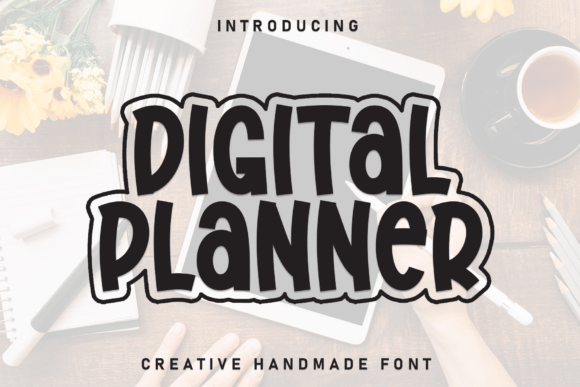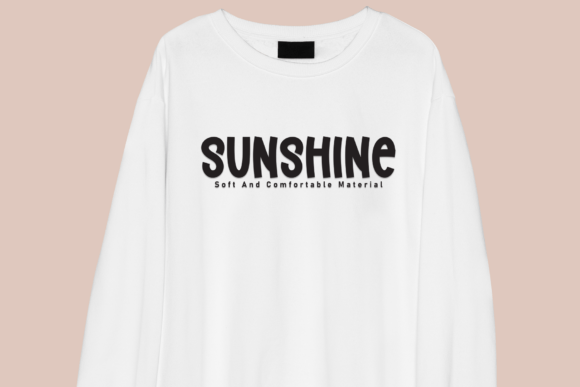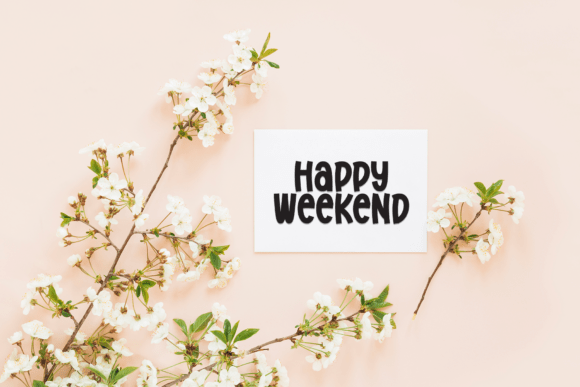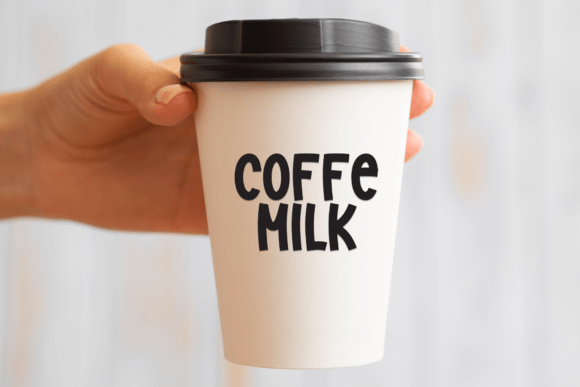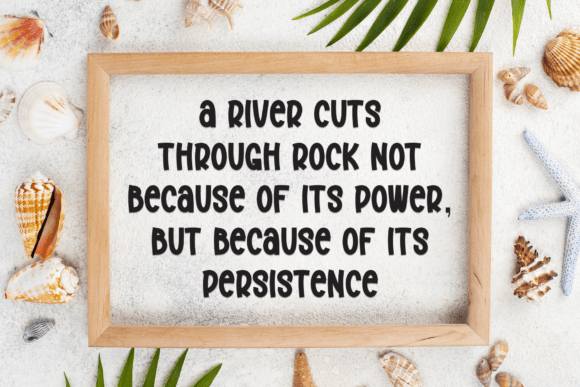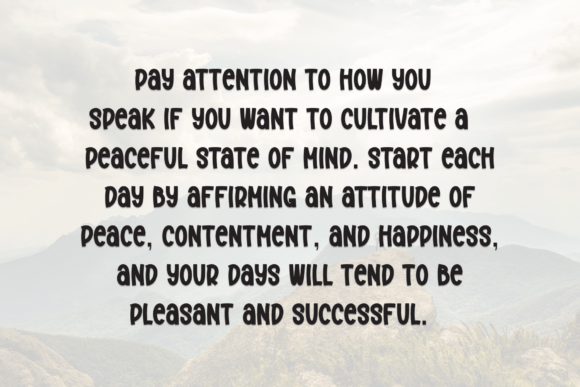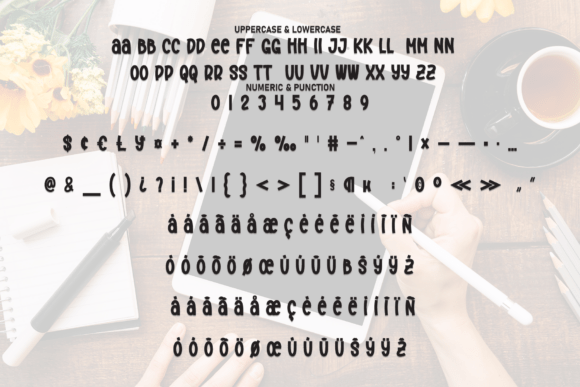
Unlock the Secret to Captivating Designs
Remember that moment when you stumbled upon the perfect font, and your design suddenly came to life? It’s a feeling that every designer knows and loves. For those seeking that elusive combination of simplicity and charm, look no further than the Digital Planner Font.
This beautiful display font seamlessly blends modern handwritten typography with a polished finish, making it perfect for branding, headlines, packaging, and digital content. Whether you’re working on a personal project or a high-profile campaign, the Digital Planner Font is sure to add a warm and inviting touch to your designs. As a versatile and crisp font, it delivers clarity and charm in equal measure, making it a valuable asset for any designer looking to elevate their work.
Digital Planner Font Key Features
- Unique Characteristics: Distinctive digital planner font with a modern, clean, and minimalist aesthetic, perfect for bullet journaling, daily planning, and goal setting.
- Character Set: Includes a wide range of characters, including uppercase and lowercase letters, numbers, punctuation marks, and symbols, for comprehensive use.
Digital Planner Font Review
I recently had the chance to work with the Digital Planner Font, and I must say it’s been a mixed bag. There are definitely some things that shine, but also some areas where it falls short.
- Modern and clean aesthetic: The font has a sleek and modern design that looks perfect for digital planners and other organizational tools.
- High legibility: The font is highly legible, making it easy to read even at smaller font sizes.
- Wide character set: The font includes a wide range of characters, including numbers, symbols, and special characters.
- Limited customization options: While the font looks great, it’s a bit restrictive in terms of customization options. It would be great to have more flexibility in terms of color, size, and style.
- Not ideal for long blocks of text: While the font is great for short notes and to-do lists, it can get a bit fatiguing when used for longer blocks of text.
Overall, I’d say the Digital Planner Font is a solid choice for digital planners and other organizational tools, but it may not be the best fit for more complex documents or longer blocks of text. With a bit more customization and flexibility, it could be a top contender in the font market.
Getting the Most Out of Digital Planner Font
Experiment with different font sizes, colors, and styles to create a visually appealing design. Use the font to create headings, subheadings, and body text. You can also use it to create custom graphics and illustrations.
Digital planner font is commonly used in digital planners, journals, and notebooks. It’s also used in productivity and organization templates, as well as in educational and business materials.